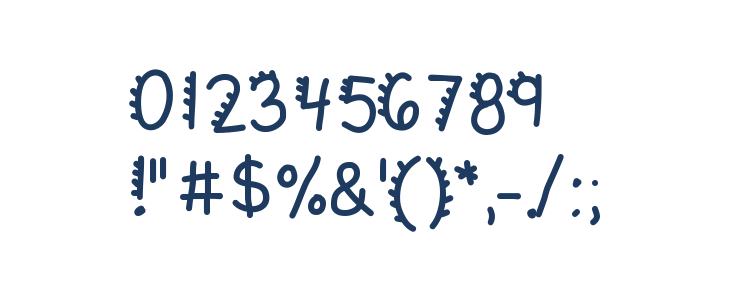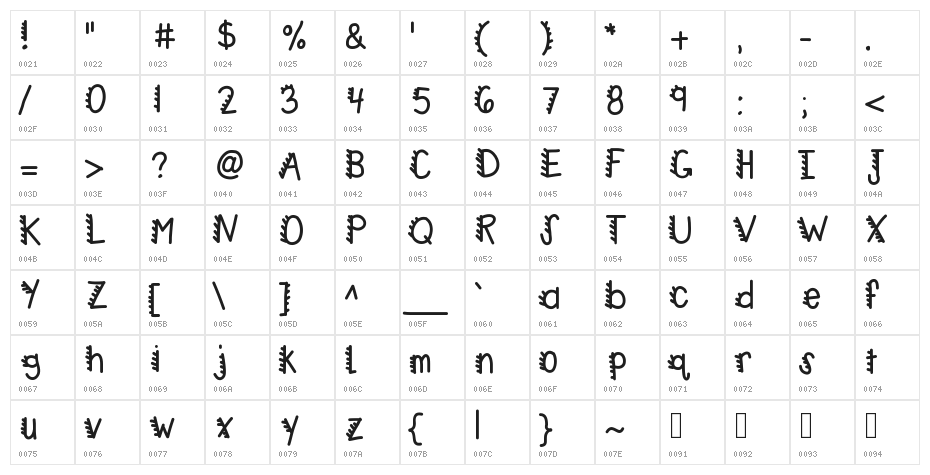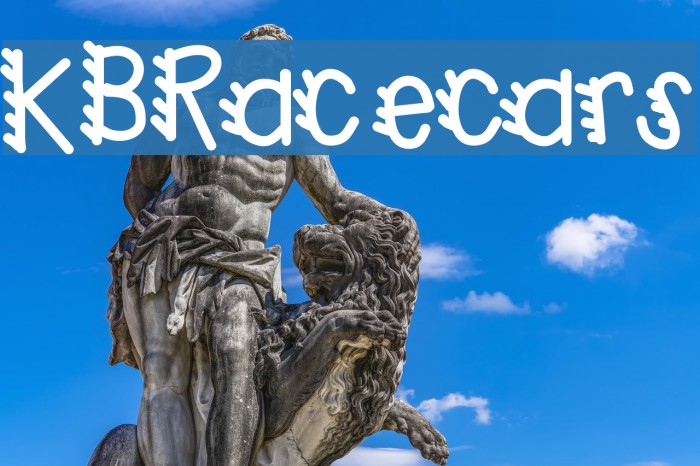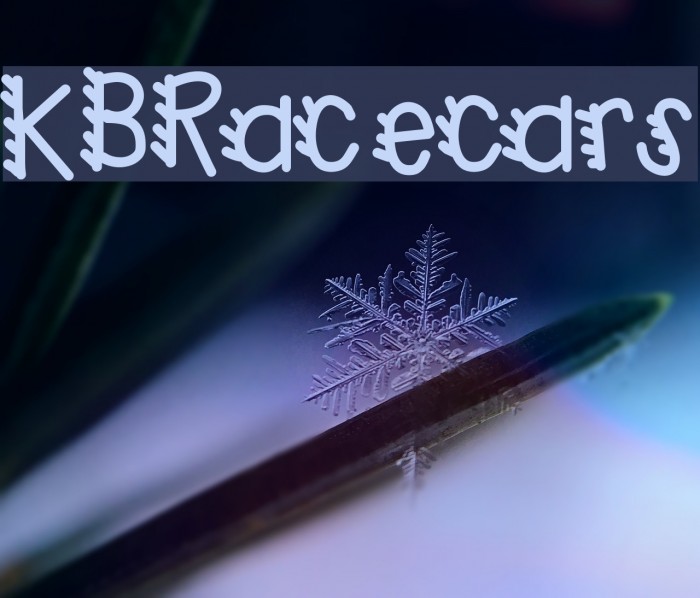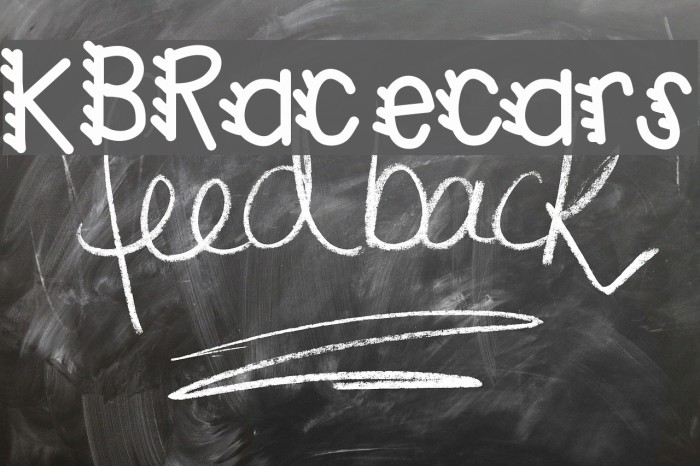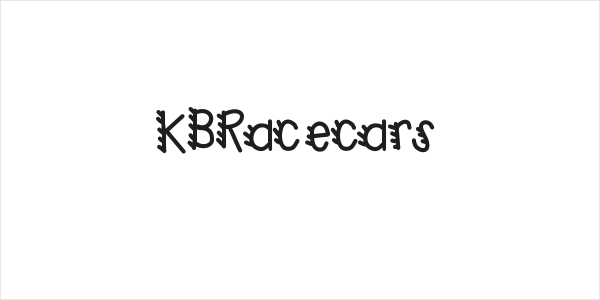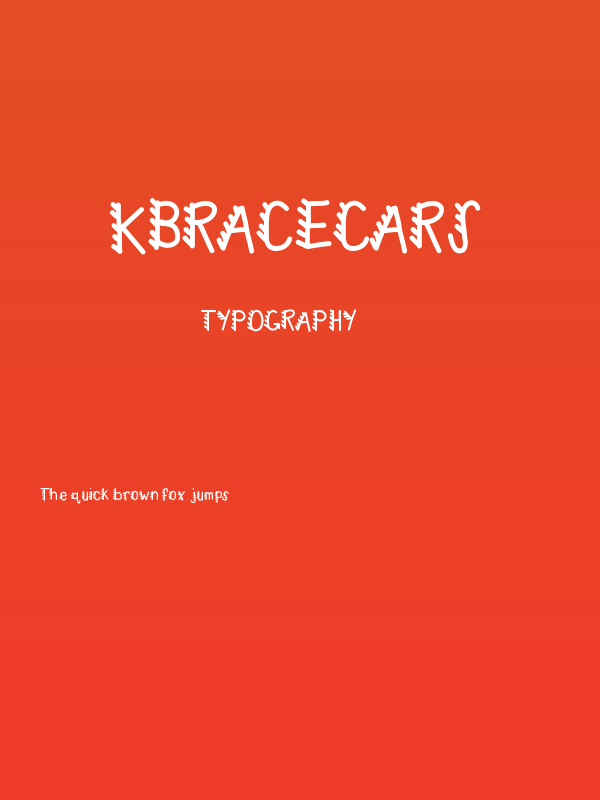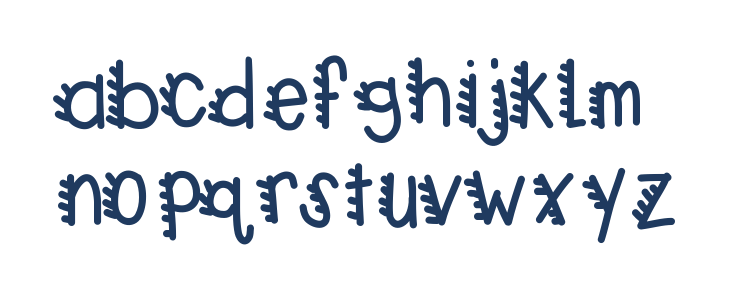
KBRacecars Font
KBRacecars Description
This font features a playful and whimsical design with a unique decorative style. Each character is adorned with small, spiky embellishments that give it a quirky and energetic feel. The letters are bold and rounded, with a consistent thickness throughout, making them highly legible despite their decorative nature. The numbers and special characters follow the same design principles, ensuring a cohesive look across all glyphs. This font is ideal for projects that require a fun and engaging visual element, such as children's books, party invitations, or playful branding.
Overall StylePlayful, Whimsical, Decorative
Proposed ProjectsIdeal for children's books, party invitations, playful branding, and creative posters.